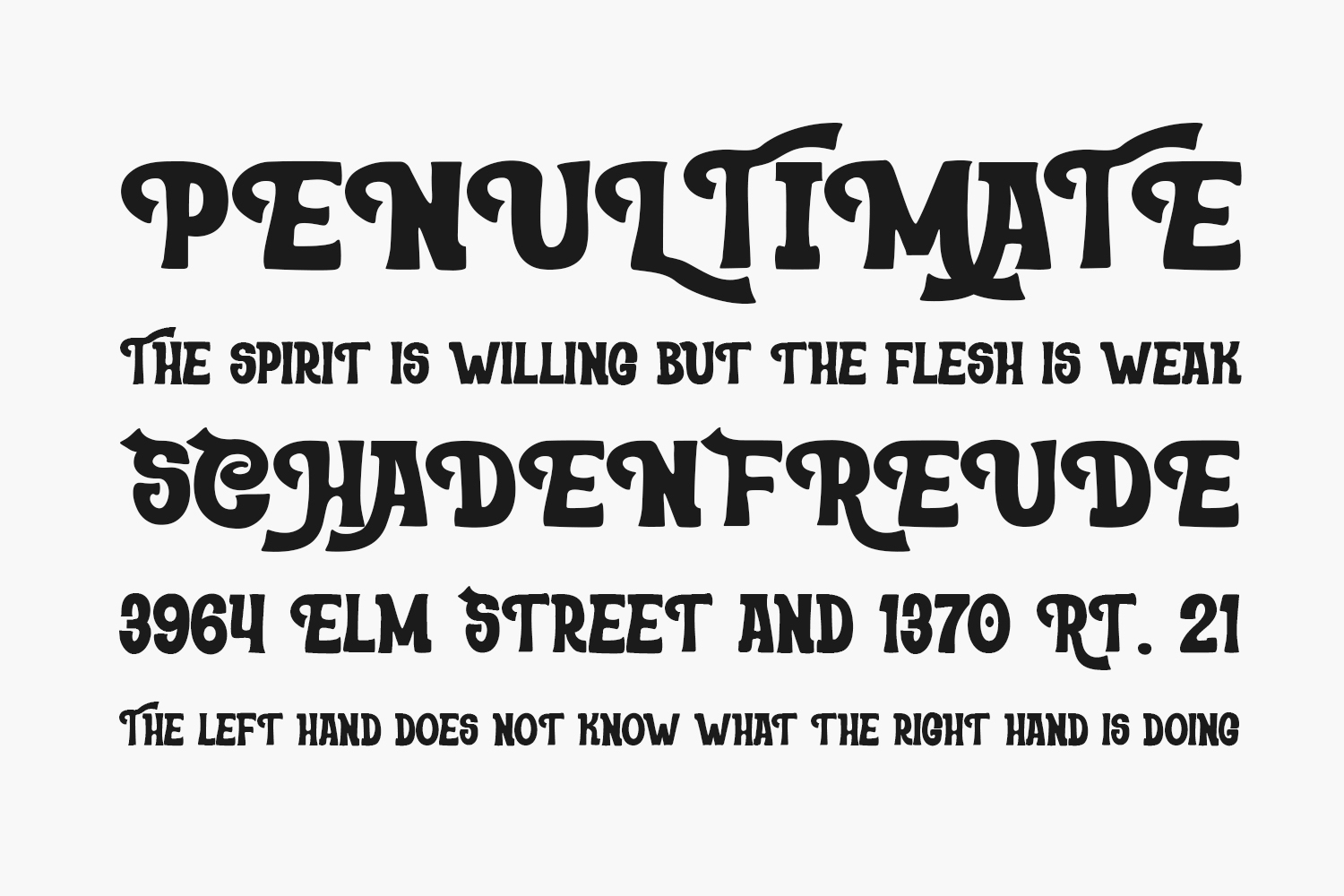
Immerse yourself in the vibrant world of Morning Beach Free Font, a meticulously handcrafted display font that is destined to become your go-to favorite. With its bold and playful demeanor, this font exudes a casual charm that effortlessly captures a down-to-earth essence while maintaining exceptional readability.
Embrace the versatility of Morning Beach as it effortlessly shines in any context. Whether gracing busy backgrounds or standing tall as a captivating headline, this font never fails to make a lasting impression. Its ability to adapt and enhance any design ensures that your projects will stand out with unparalleled flair. Morning Free Font is free for personal use only. Please purchase the full version for commercial use.